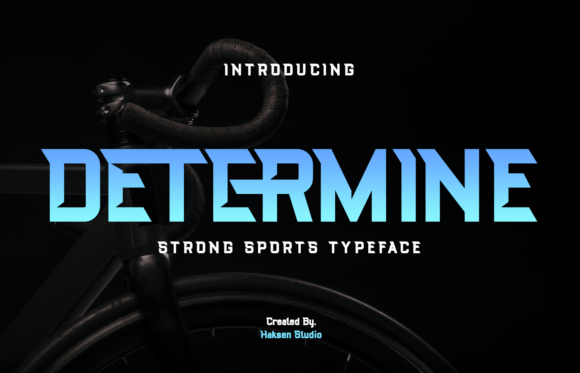
In the realm of fonts, DETERMINE emerges as a commanding sans serif typeface, exuding a sense of poise and harmony. Its solid and striking presence demands attention, making it the ideal choice for those seeking to create captivating designs with a distinctively modern flair.
DETERMINE is not merely a font; it is an instrument of creativity, a tool that unlocks a world of possibilities for designers of all stripes. Its meticulously crafted letterforms exhibit a robust and confident character, perfectly suited for crafting bold headlines, striking logos, and visually captivating posters. Its versatile nature extends to packaging design, where it effortlessly elevates the appeal of products, and even to the world of fashion, where it graces T-shirts with a touch of sophistication.
The highlight of DETERMINE lies in its extensive collection of uppercase ligatures, a feature that grants designers unparalleled flexibility and creative freedom. These ligatures allow for seamless combinations of characters, creating a cohesive and visually stunning flow of text. Experiment with a variety of combinations to discover the endless possibilities that DETERMINE presents.
Visualize the impact of DETERMINE adorning the cover of Vogue magazine, its bold characters commanding attention and setting the tone for a journey into the world of haute couture. Its presence on packaging transforms mundane products into objects of desire, enticing customers with its promise of quality and exclusivity. Envision your brand's logo rendered in DETERMINE, its distinctive form leaving an indelible mark on the minds of your audience.
DETERMINE is more than a font; it is a gateway to creative expression. Its unwavering strength and inherent beauty empower designers to craft designs that resonate with audiences, leaving a lasting impression that lingers in the memory. It is a font that demands attention, a font that inspires creativity, and a font that elevates designs to new heights of sophistication.
Embark on a creative odyssey with DETERMINE as your trusted companion. Experience the thrill of crafting designs that captivate and inspire, designs that command attention and leave an indelible mark on the world. Embrace the power of DETERMINE and unlock the boundless potential of your imagination.